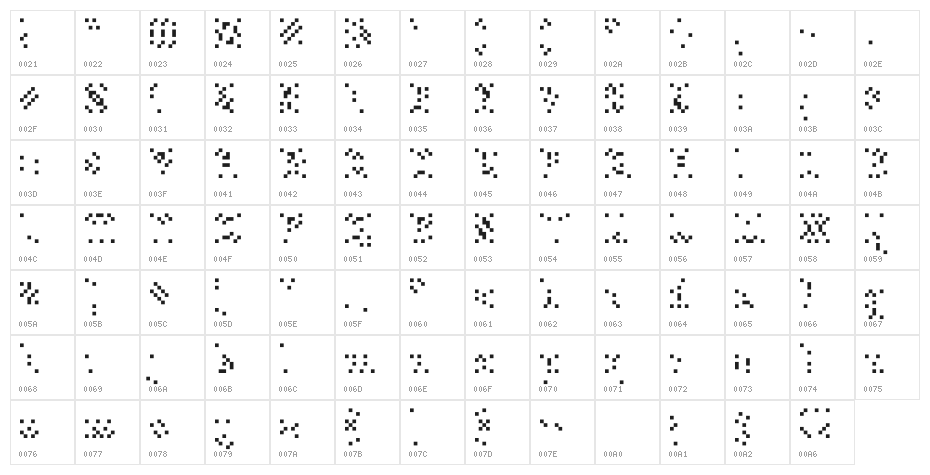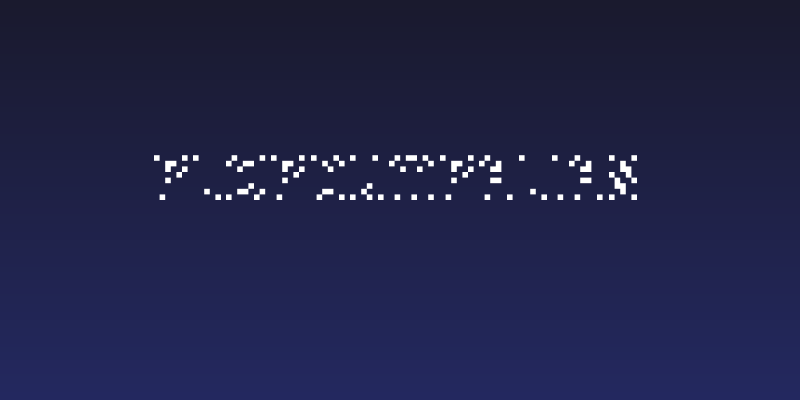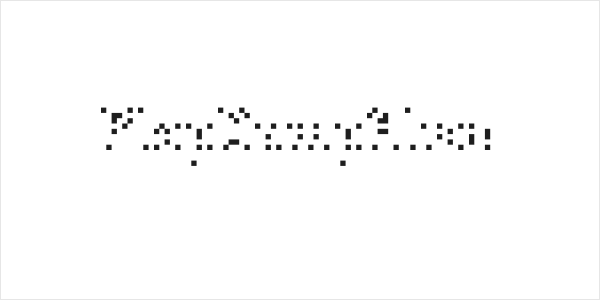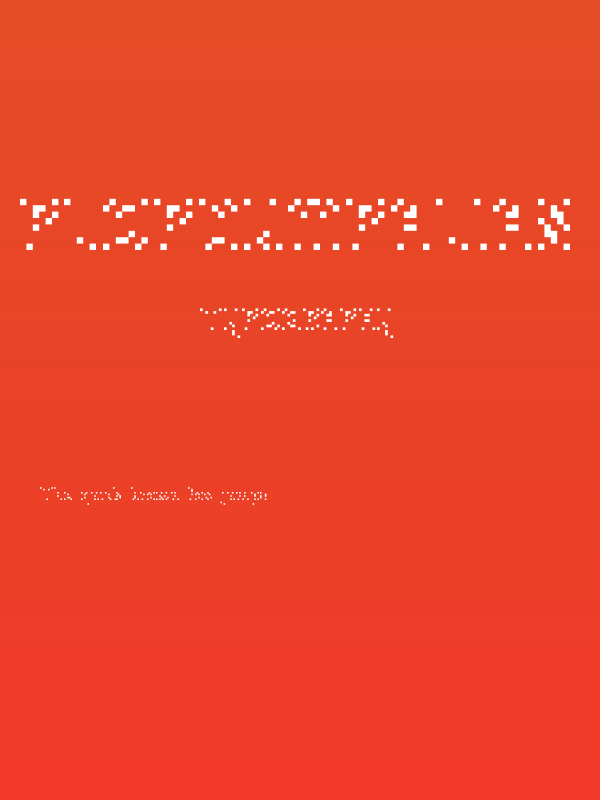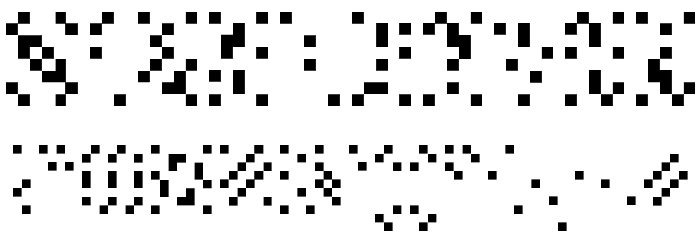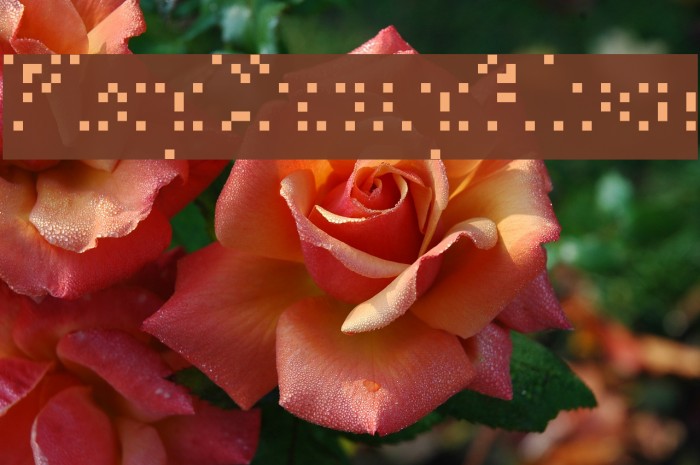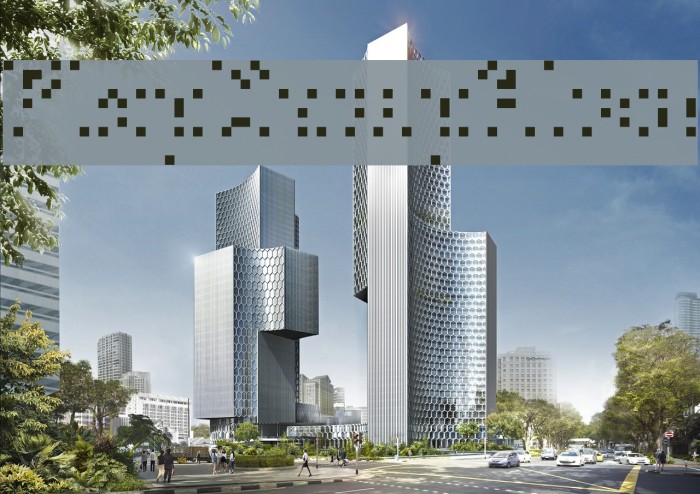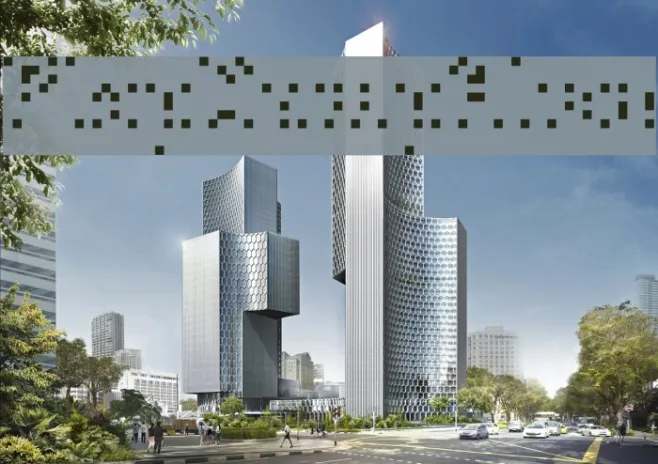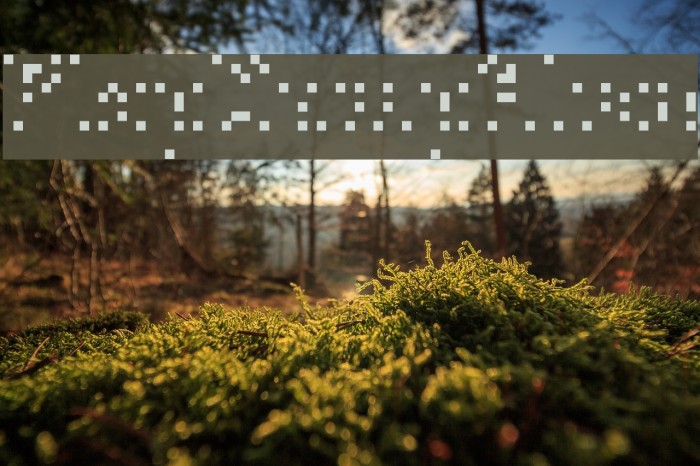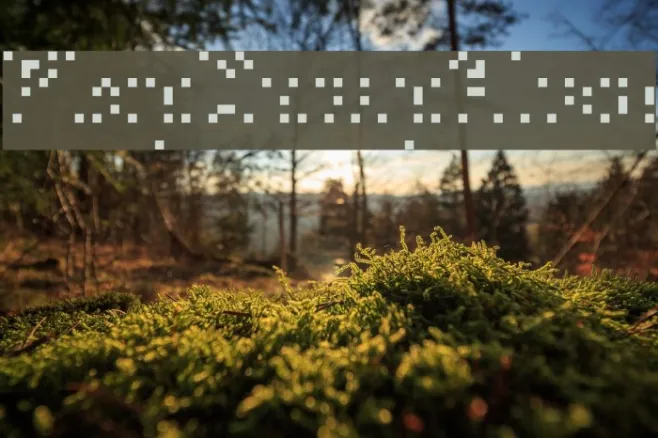
PlopDumpAlias Font
PlopDumpAlias Description
This font features a pixelated, digital aesthetic reminiscent of early computer graphics and retro video games. Each character is constructed from a grid of small squares, giving it a distinctly blocky and geometric appearance. The uppercase and lowercase letters maintain a consistent height, while the numerals and special characters integrate seamlessly into the overall design. The font's uniformity and simplicity make it highly legible, even at smaller sizes. Its nostalgic charm is perfect for projects that aim to evoke a sense of vintage technology or digital art.
| Use Case | Logos, Headlines, Digital Art |
| Proposed Projects | Ideal for video game design, digital art projects, retro-themed posters, and tech-related branding. |